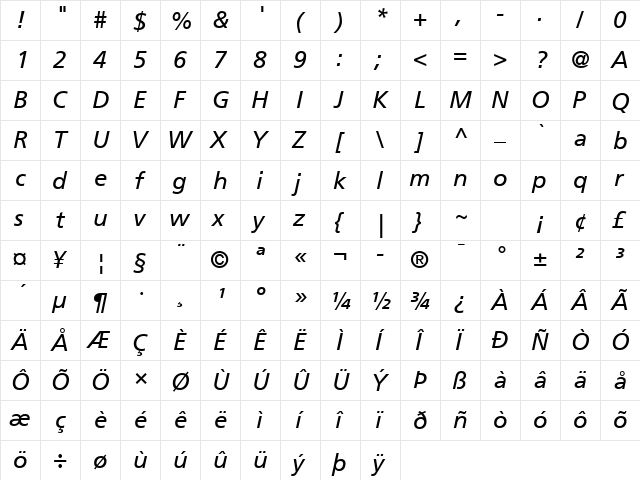
Frutiger LT Com 56 Italic Font Preview
Frutiger LT Com 56 Italic
Frutiger LT Com 56 Italic Font Details
| Style | 56 Italic |
| Foundry | Linotype GmbH |
| Designer | Adrian Frutiger |
Design Context for Frutiger LT Com Typeface
Frutiger LT Com takes a measured approach to typography — its balanced proportions and neutral character make it a reliable workhorse for both digital and print work. The dynamic lean of this cut emphasises speed and emphasis in any layout. The delicate stroke weight brings airiness and refinement to layouts.
Pro Tip: Use Frutiger LT Com for emphasis, pull quotes, and subheadings where its slanted energy can add rhythm to the layout.